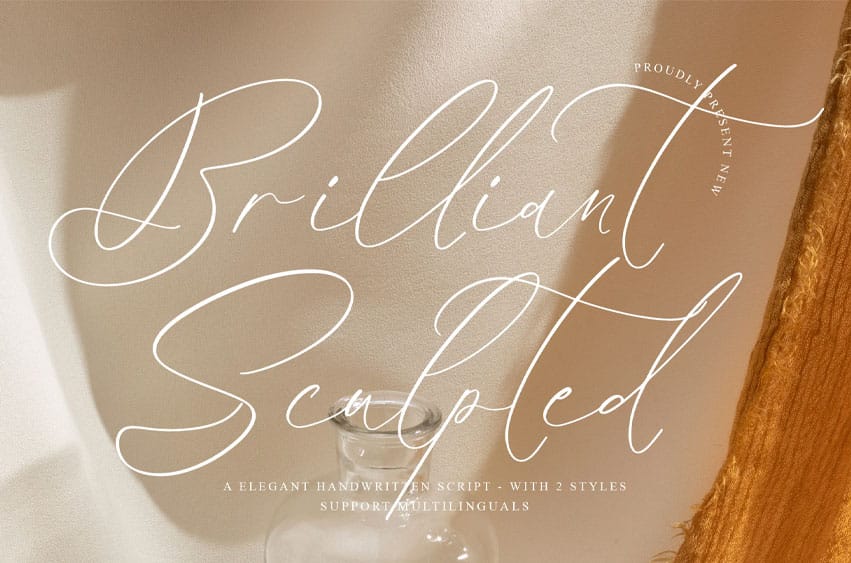
Brilliant Sculpted Font is an elegant handwritten script font that embodies sophistication, grace, and artistic refinement. Designed with fluid strokes and beautifully balanced curves, this font adds a luxurious, personal touch to any design. Perfect for upscale branding, wedding stationery, editorials, or elegant packaging, Brilliant Sculpted captures attention with timeless beauty and flawless detail.
Elegant handwritten script with smooth, refined lines Includes uppercase, lowercase, numerals, punctuation, and special symbols Features stylistic alternates and ligatures for creative flexibility Multilingual support for a wide range of design projects Perfect for wedding invitations, fashion branding, logos, and elegant quotes Combines legibility with a luxurious handwritten feel Enhance your designs with the exquisite charm of Brilliant Sculpted — download now and bring elegance to every word you create.